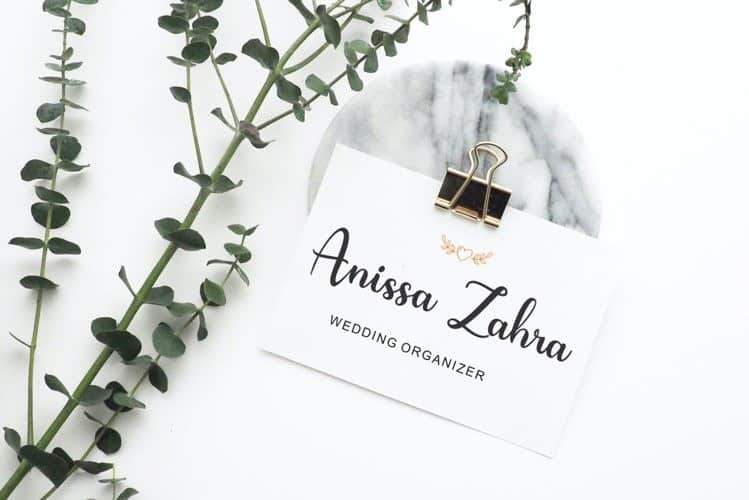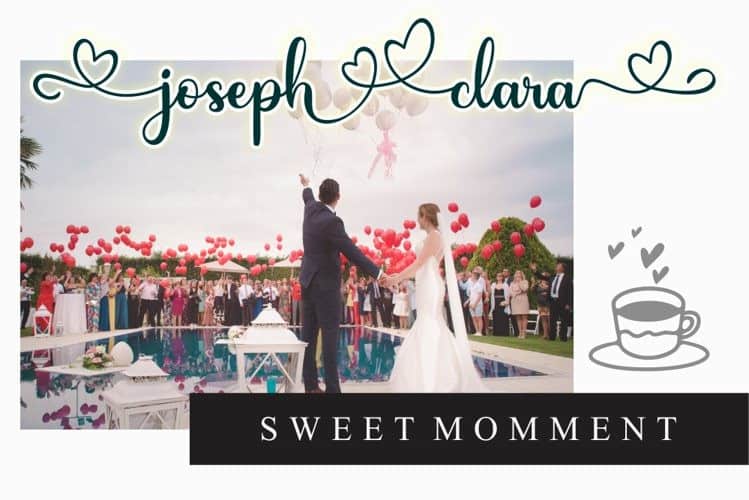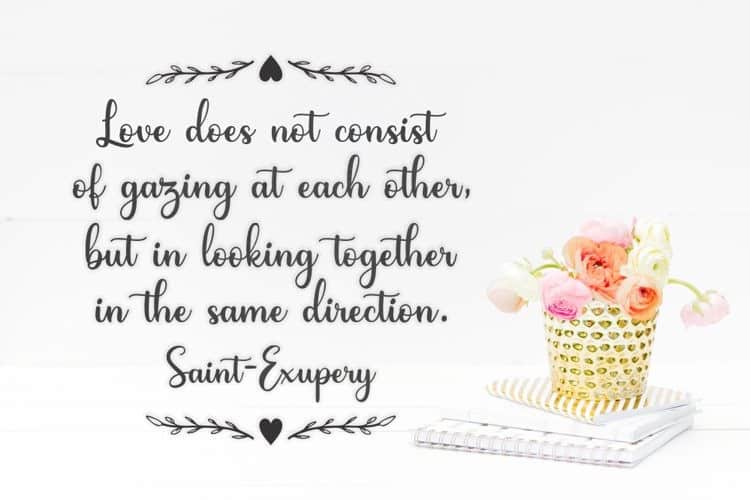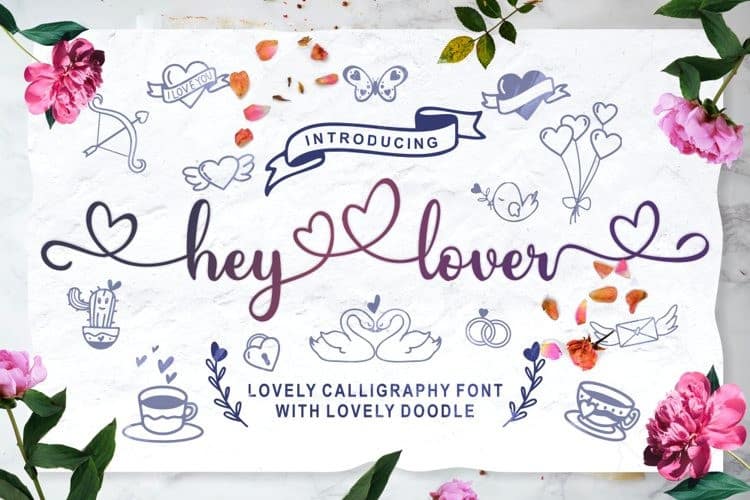
Hey Lover Calligraphy Font is a lovely script typeface. This font can be used for various purposes, including for invitations, weddings, birthdays, fashion, products, feminine, beauty, salon, etc. It’s designed and shared by Letter Nun. A new cool modern calligraphy script, with new innovation system for Uppercase Portable Swashes! So we can create balance swash style. It also nice just with basic character. Bonus italic/slanted version for your convenience.
Hey Lover